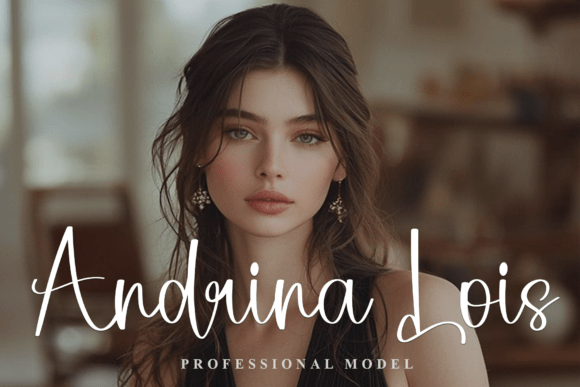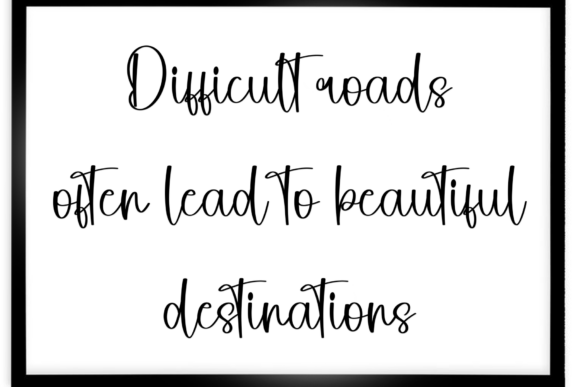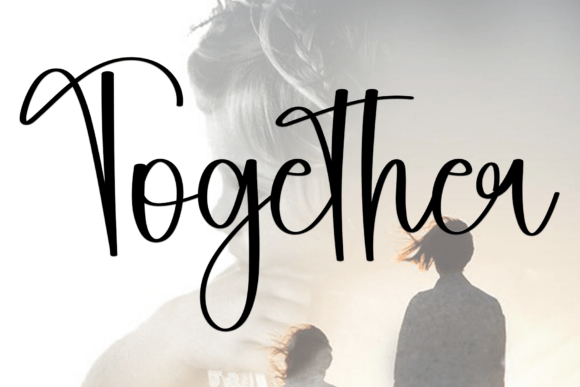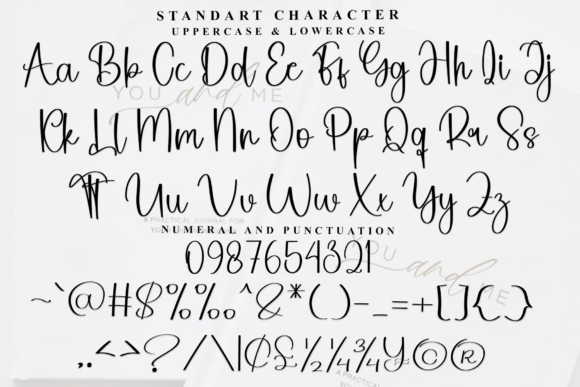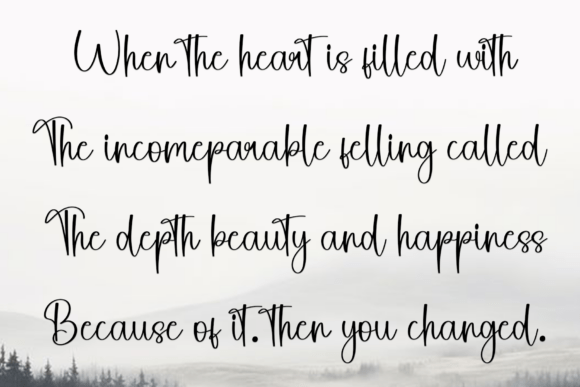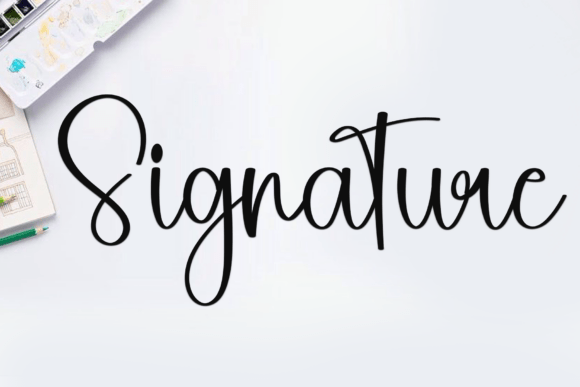
Bolding Font: Add a Touch of Holiday Cheer to Your Designs
The holiday season is upon us, and what better way to get into the spirit than with a festive and merry typeface? Look no further than Bolding Font, a decorative and whimsical font that’s perfect for adding a touch of enchantment to your designs. Whether you’re creating greeting cards, gift tags, or holiday-themed projects, Bolding Font is sure to bring a cheerful and nostalgic ambiance to your words.
The Magic of Bolding Font
Bolding Font is a unique and eye-catching typeface that’s specifically designed to capture the spirit of the holiday season. Its decorative elements and whimsical flair make it the perfect choice for designers and crafters looking to add a touch of magic to their projects. With Bolding Font, you can create stunning holiday-themed designs that are sure to delight your audience.
Bolding Font is perfect for a wide range of holiday projects, from greeting cards and gift tags to holiday-themed posters and social media graphics. Its festive and merry design makes it an ideal choice for anyone looking to add a touch of holiday cheer to their designs. Whether you’re a professional designer or a crafter looking to create unique and personalized gifts, Bolding Font is the perfect choice.
One of the best things about Bolding Font is that it’s PUA encoded, which means you can access all of the amazing glyphs and ligatures with ease. This makes it easy to use the font in your designs, even if you’re not a professional typographer. With Bolding Font, you can easily add decorative elements and whimsical flair to your designs, without having to spend hours learning complicated typography techniques.
Bolding Font: A Designer and Crafter’s Dream
Bolding Font is a dream come true for designers and crafters. Its unique and eye-catching design makes it perfect for creating stunning holiday-themed designs, and its PUA encoding makes it easy to use. Whether you’re a professional designer or a crafter looking to create unique and personalized gifts, Bolding Font is the perfect choice.
Tips for Using Bolding Font
Here are a few tips for using Bolding Font in your designs:
- Use Bolding Font to create eye-catching headlines and titles for your holiday-themed designs.
- Use the font’s decorative elements and ligatures to add a touch of whimsy and flair to your designs.
- Pair Bolding Font with other festive fonts to create a unique and eye-catching design.